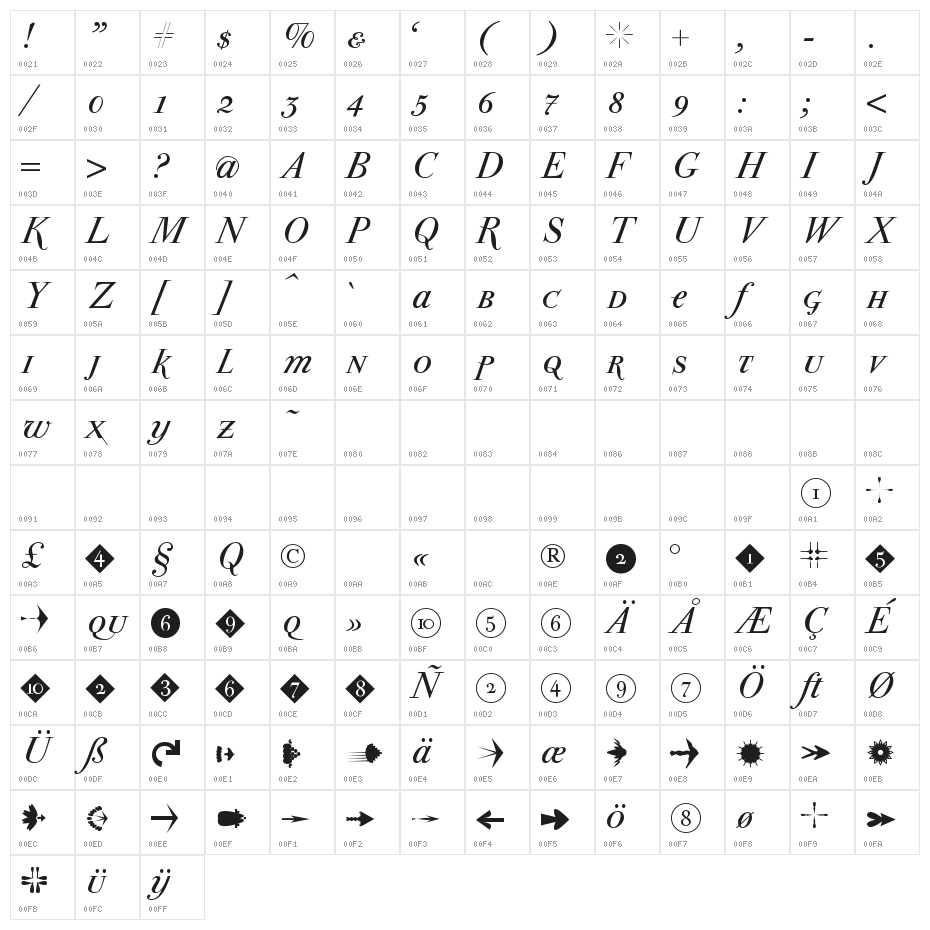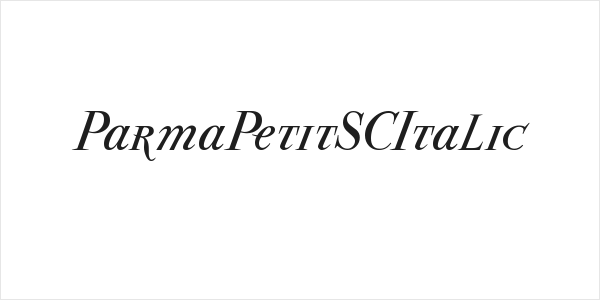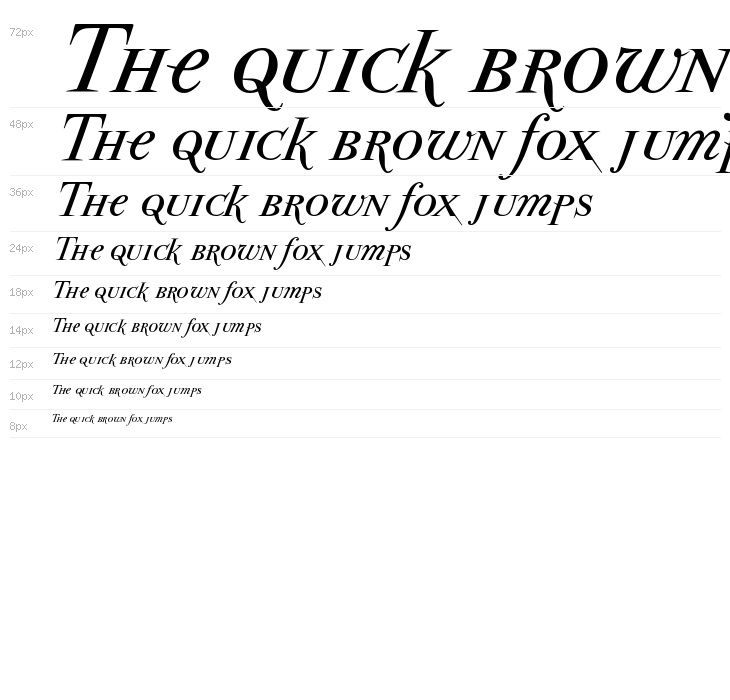
ParmaPetitSCItalic Font
ParmaPetitSCItalic Description
This elegant serif font features a classic italic style with a refined and sophisticated appearance. The characters exhibit a graceful slant, enhancing the fluidity and movement of the text. The strokes are moderately contrasted, with thin lines and slightly thicker downstrokes, adding to the font's readability and charm. The uppercase letters are tall and stately, while the lowercase letters maintain a balanced and harmonious flow. The numerals are well-proportioned, and the special characters are designed with the same attention to detail, making this font versatile for various uses.
| Proposed Projects | Ideal for projects requiring a touch of elegance, such as wedding invitations, formal event programs, luxury branding, and editorial design. |